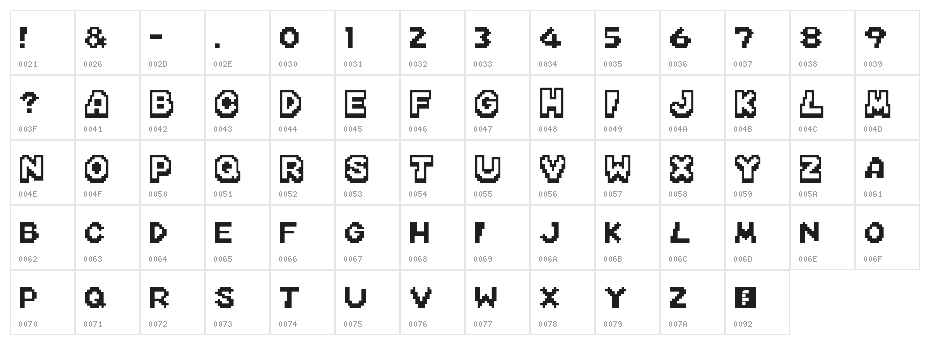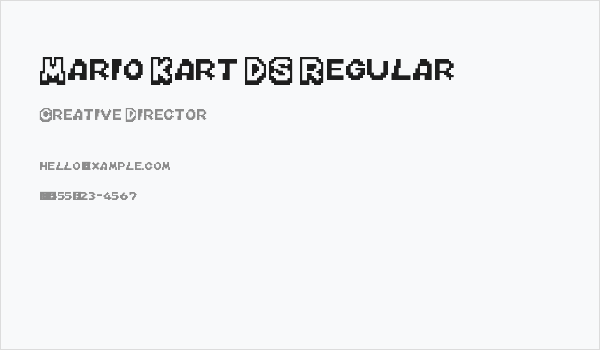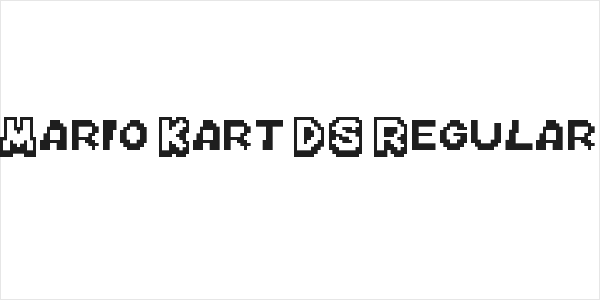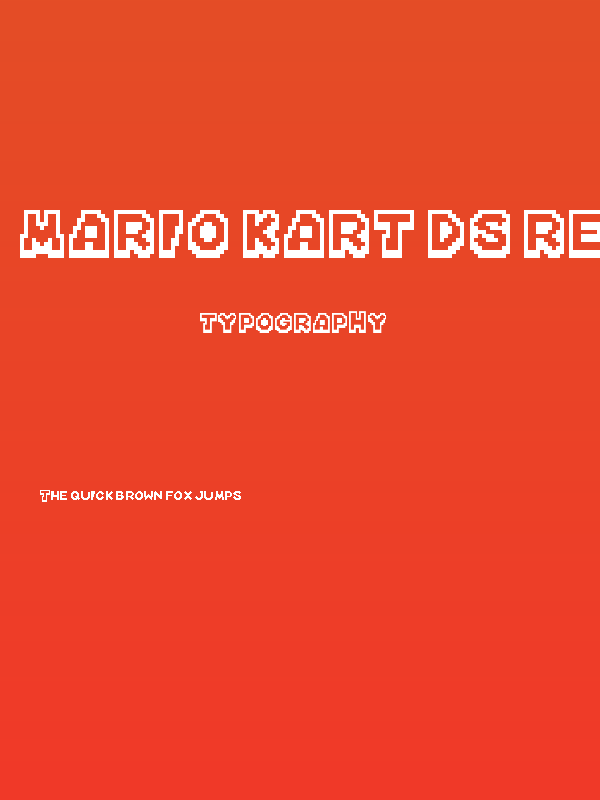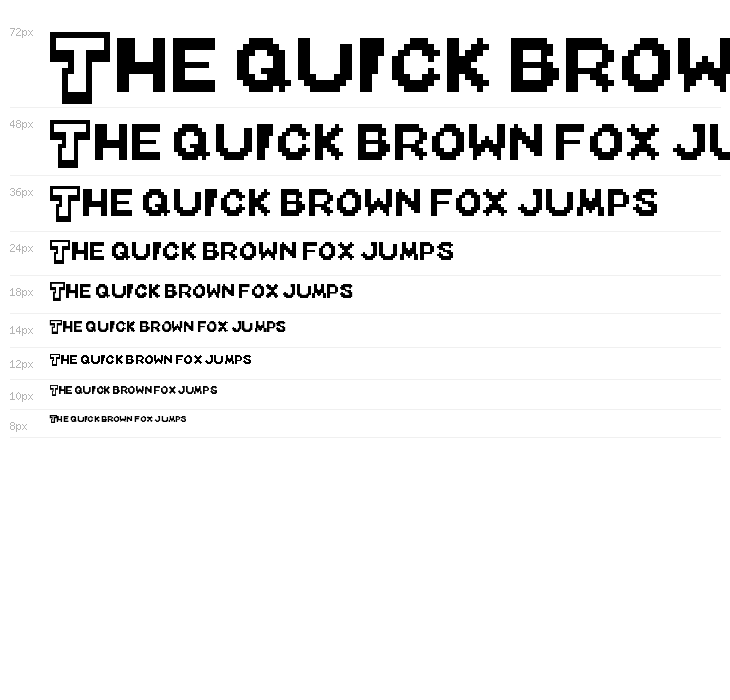
Mario Kart DS Regular Font
Mario Kart DS Regular Description
This font features a bold, pixelated style reminiscent of classic video game graphics. Each character is constructed with a blocky, geometric design, giving it a retro, digital appearance. The uppercase and lowercase letters maintain a consistent height, contributing to a uniform look. Numbers and special characters are designed with the same pixelated aesthetic, ensuring cohesion across all glyphs. The font's distinct style makes it ideal for projects that aim to evoke nostalgia or a playful, gaming-related theme. Its boldness and unique design elements make it stand out, while the pixelated nature adds a touch of vintage charm.
| Proposed Projects | Ideal for video game designs, retro-themed posters, nostalgic branding, and playful digital content. |